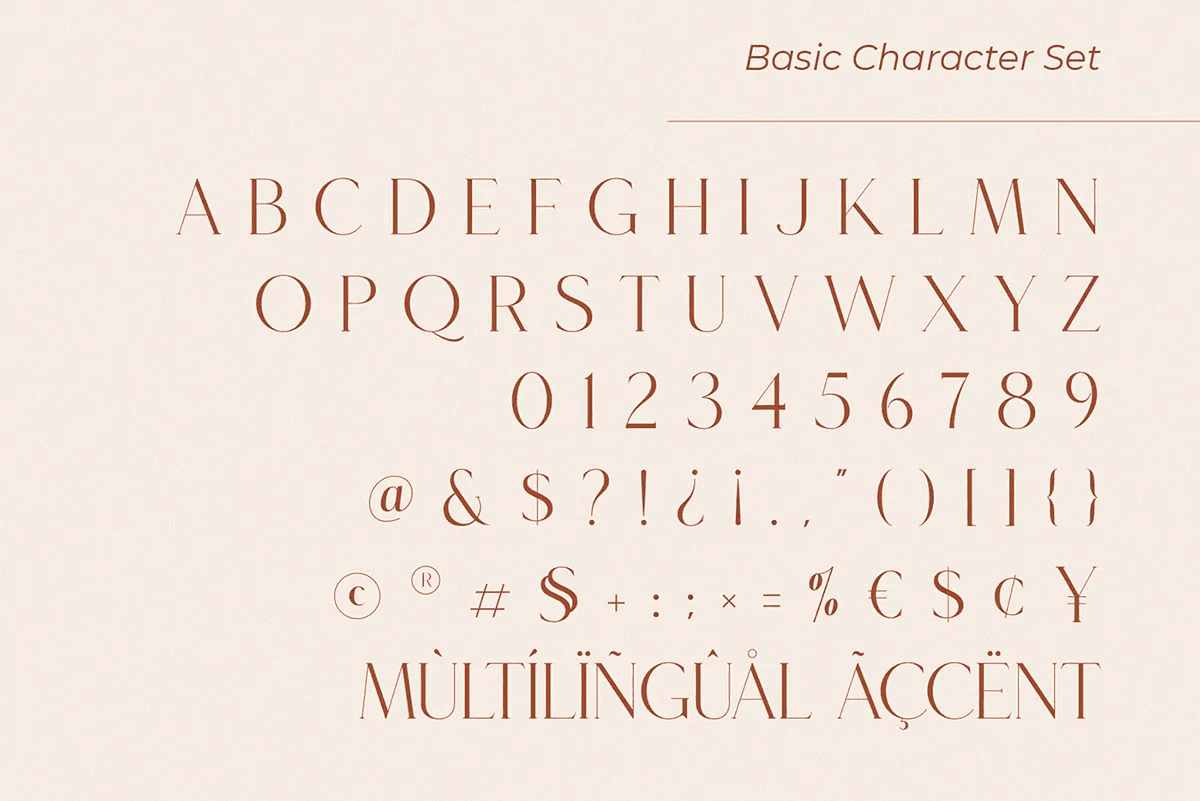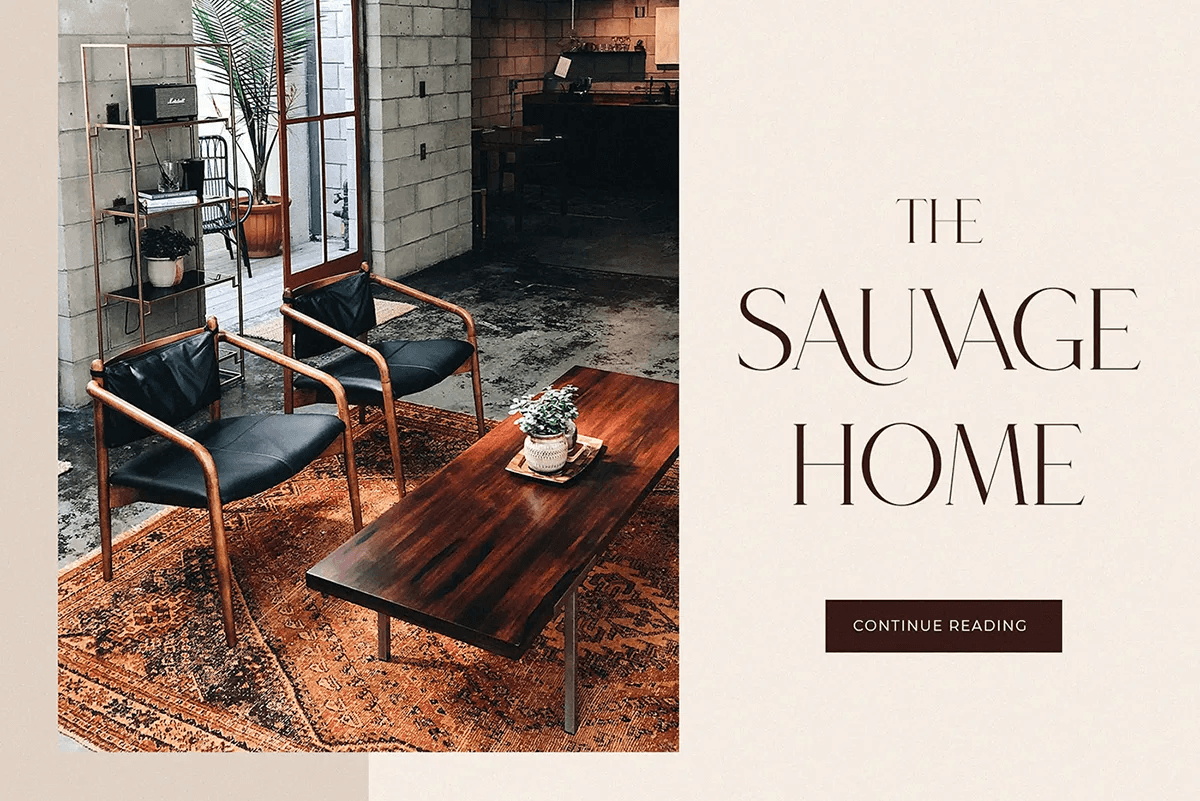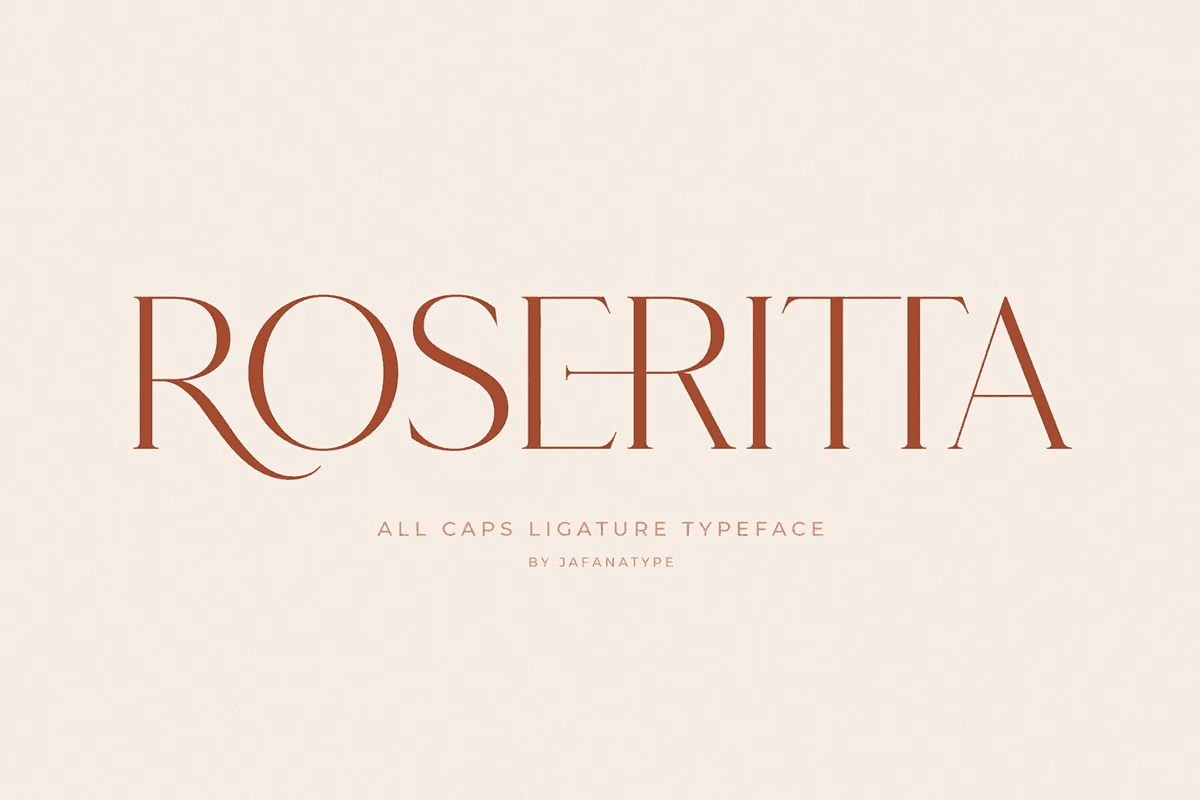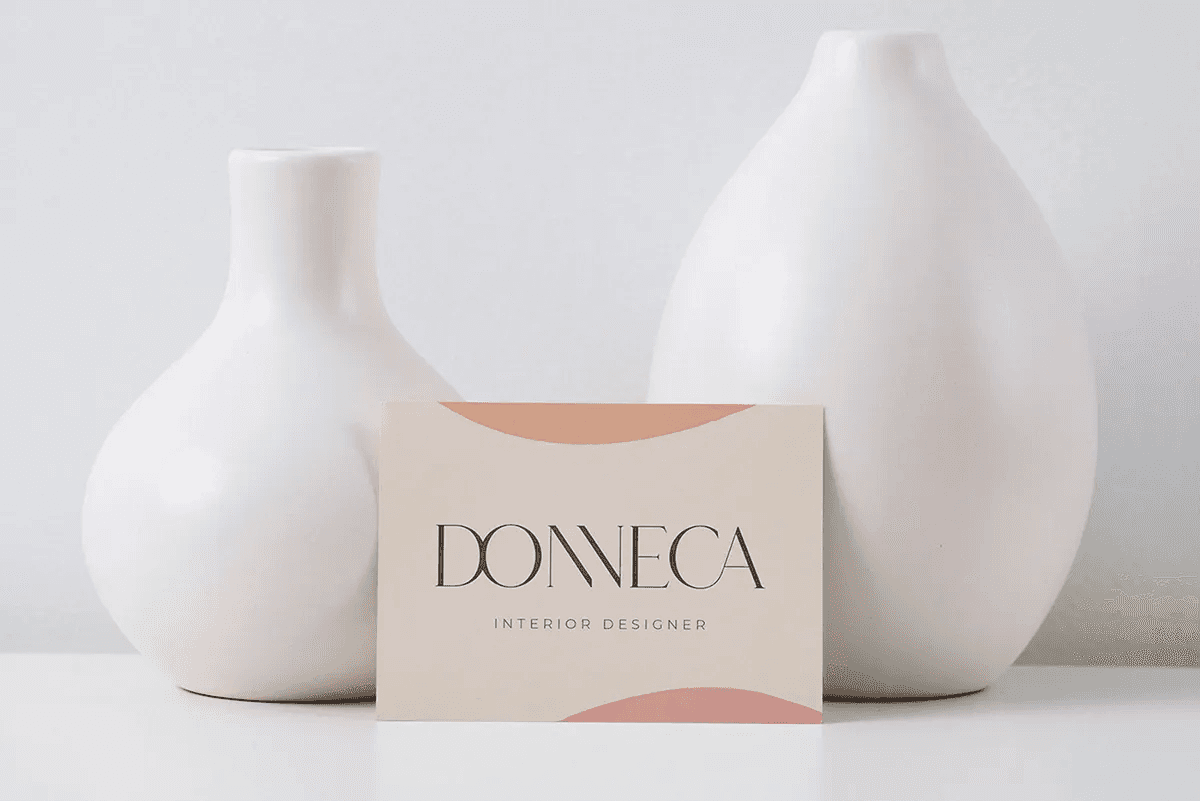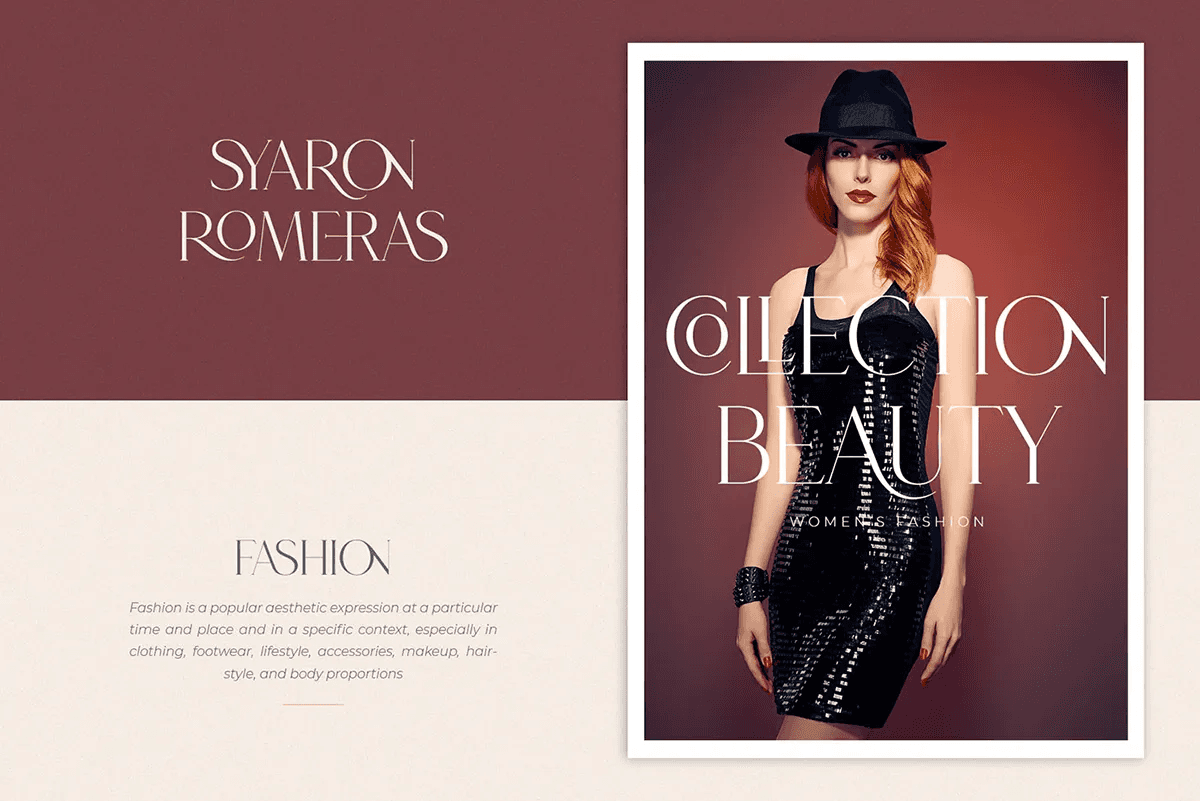
Roseritta Luxurious Serif Font is an all caps ligature serif. Roseritta is elegant and comes with classy appearance. This font is both modern and nostalgic and works great for logos, magazine, social media etc. Already matched up and ready to be used together for your next design! For those of you who are needing a touch of elegant, stylish, classy, chic and modernity for your designs, this font was created for you!Thanks to Jafanatype Studio for creating this stunning font and share it with us! So, if you like the font make sure to share the link. Hit the check out more button below if you want to see their other cool type works. Also, you can support the by clicking here and treat them a cup of coffee!